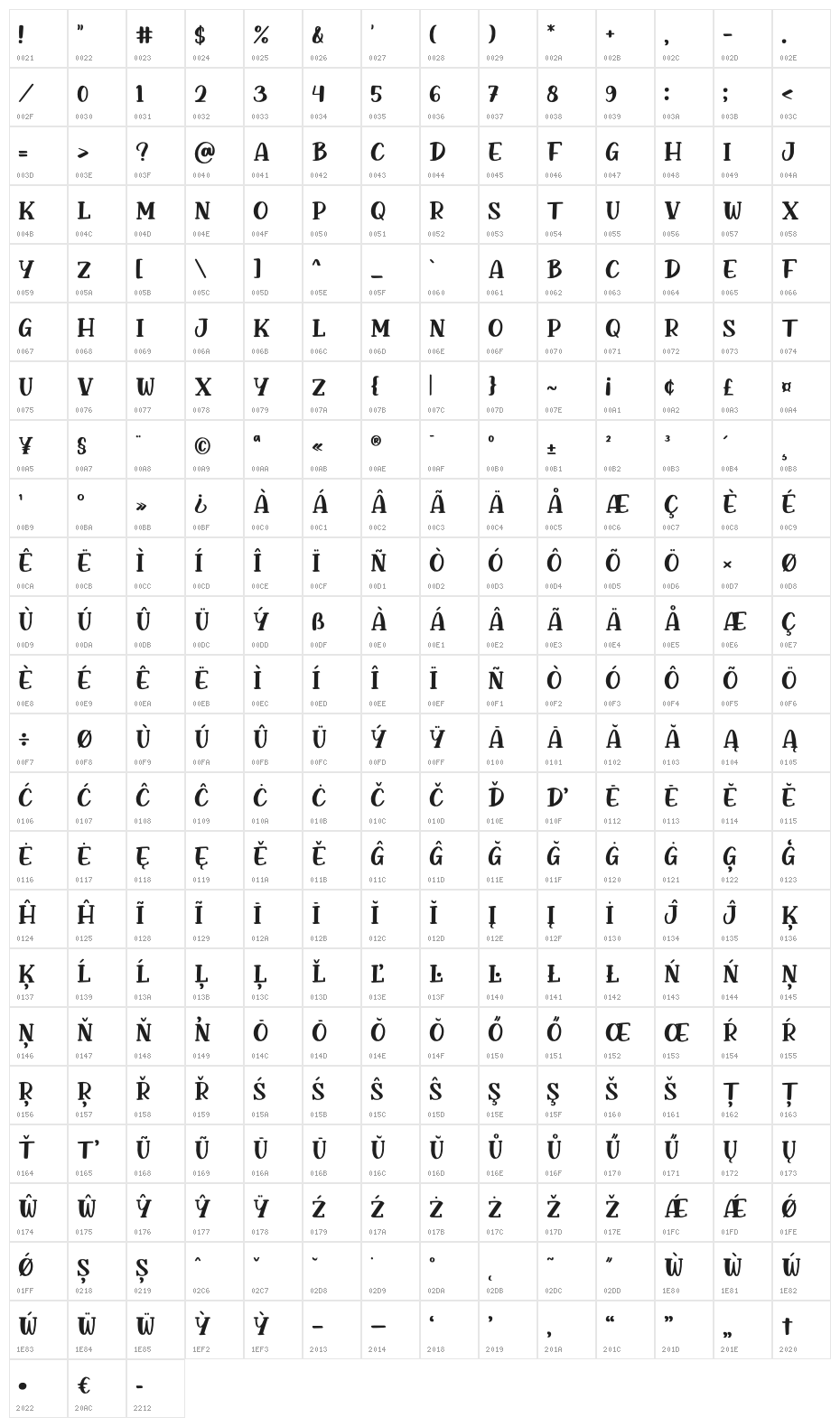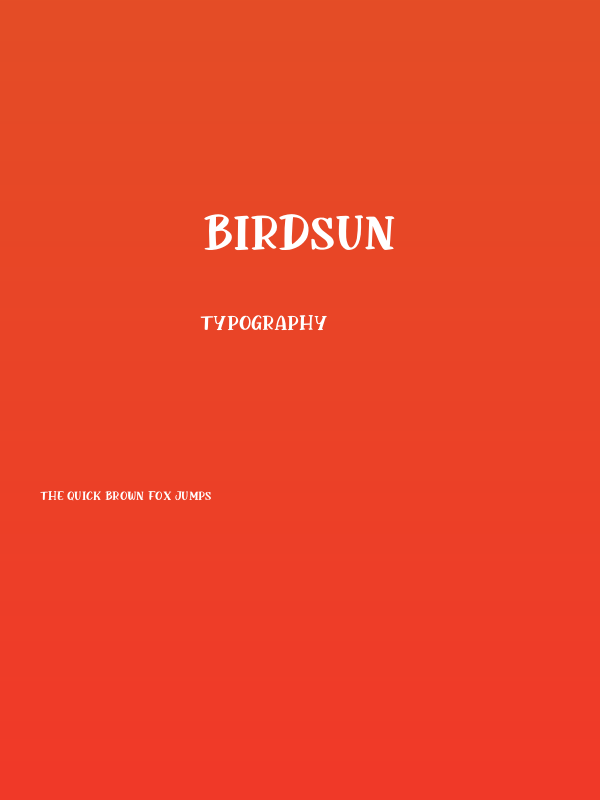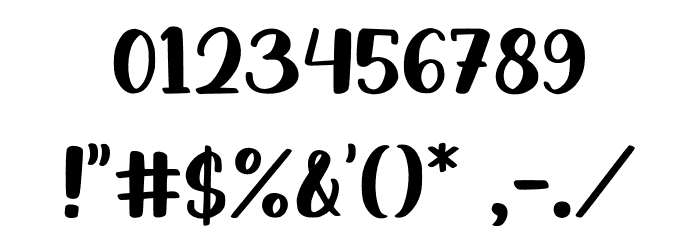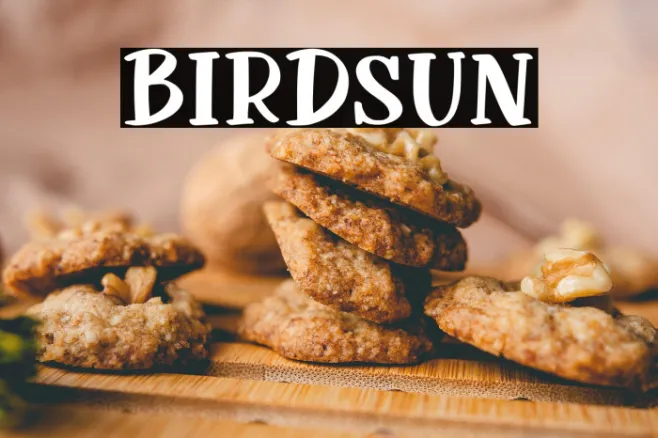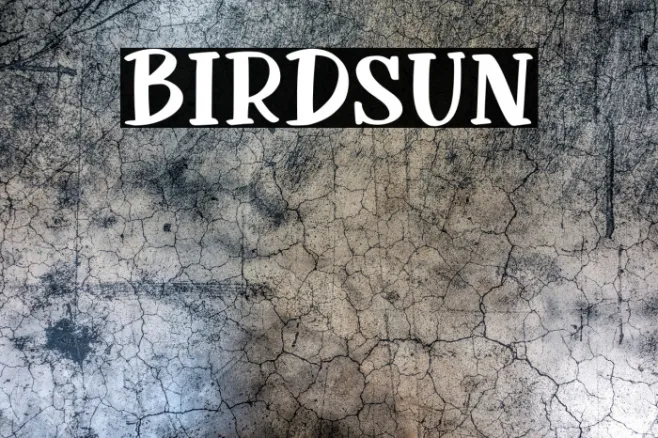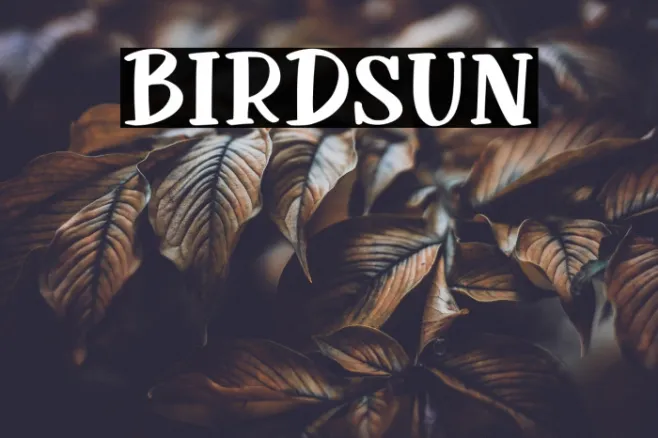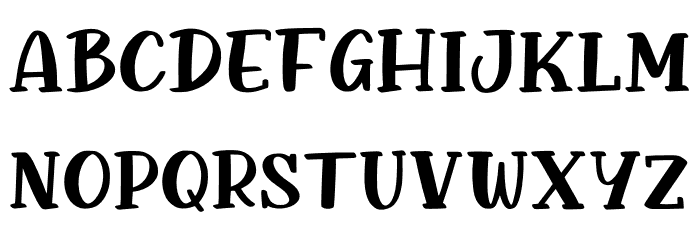
Birdsun Font
Birdsun Description
This font features a playful and bold style with a handwritten feel. The characters are slightly slanted, giving it a dynamic and lively appearance. The strokes are thick and consistent, providing a strong presence on the page. The uppercase and lowercase letters maintain a cohesive look, with rounded edges and a friendly demeanor. The numbers and special characters are designed to match the overall aesthetic, ensuring uniformity across all elements. This font is ideal for projects that require a touch of whimsy and creativity.
| Proposed Projects | Ideal for children's books, playful branding, invitations, and creative posters. |